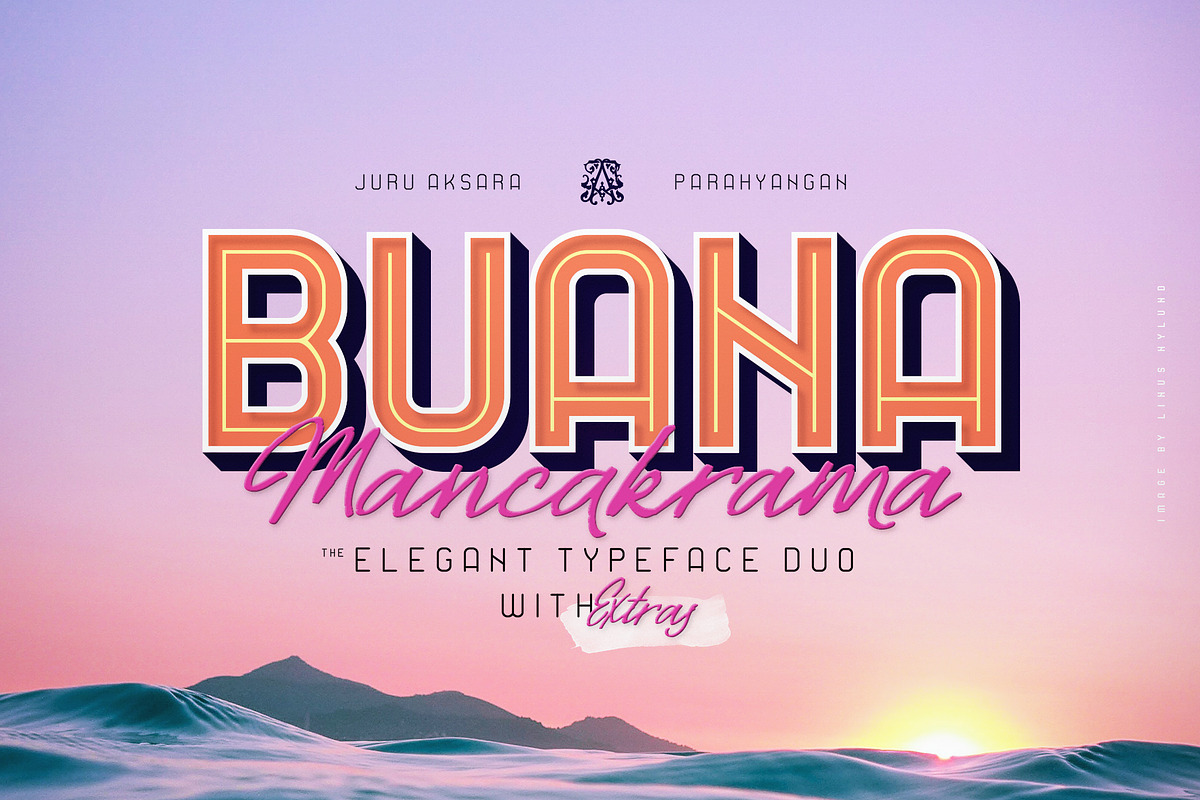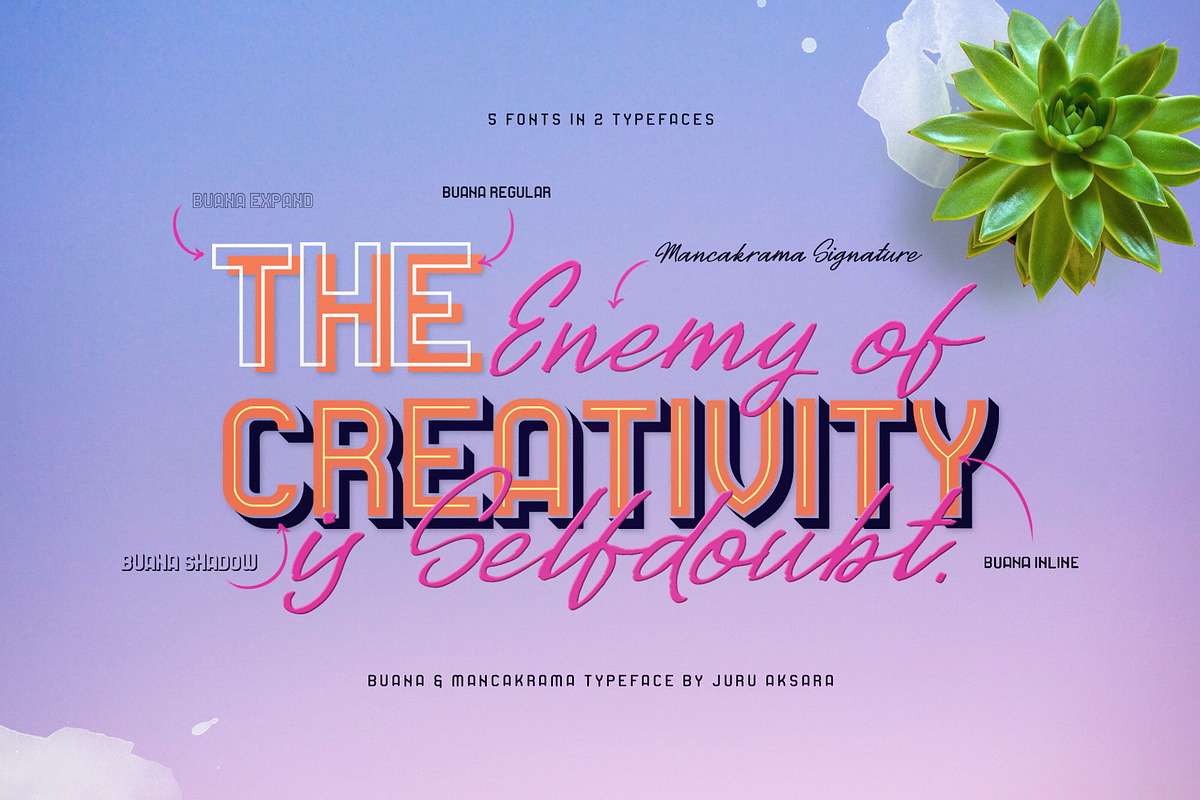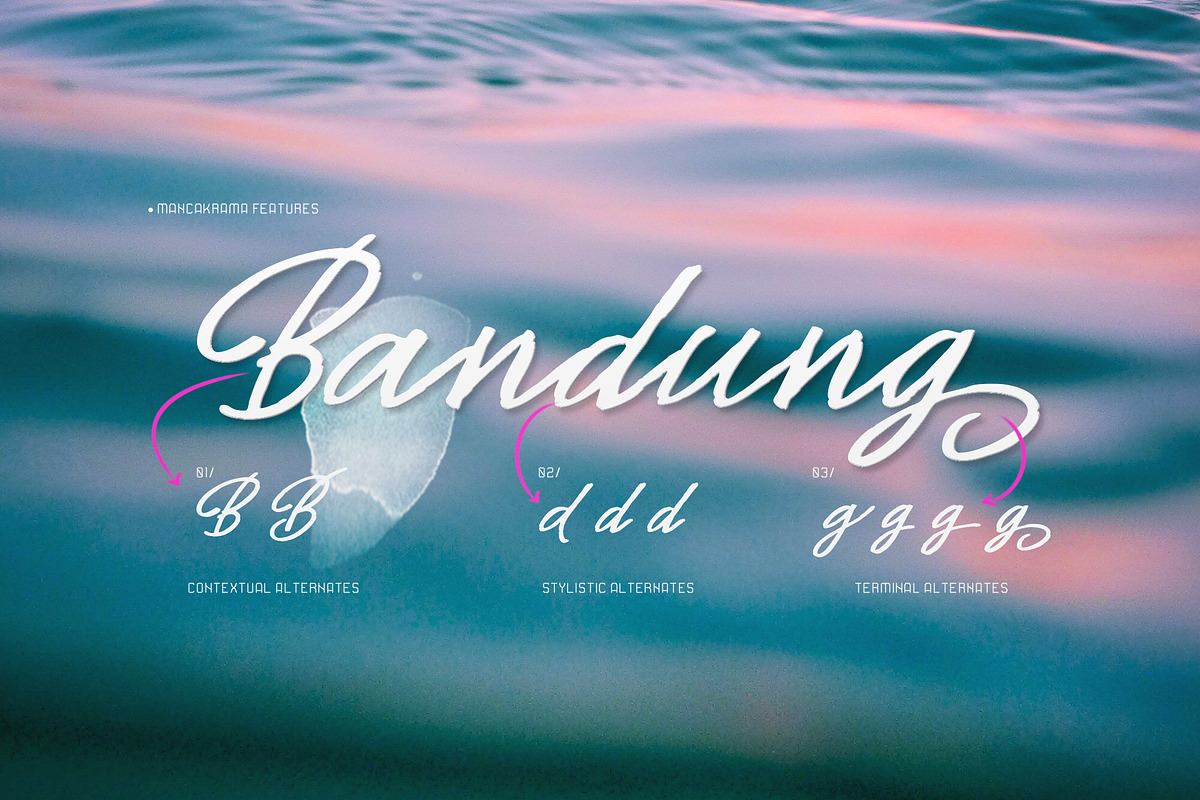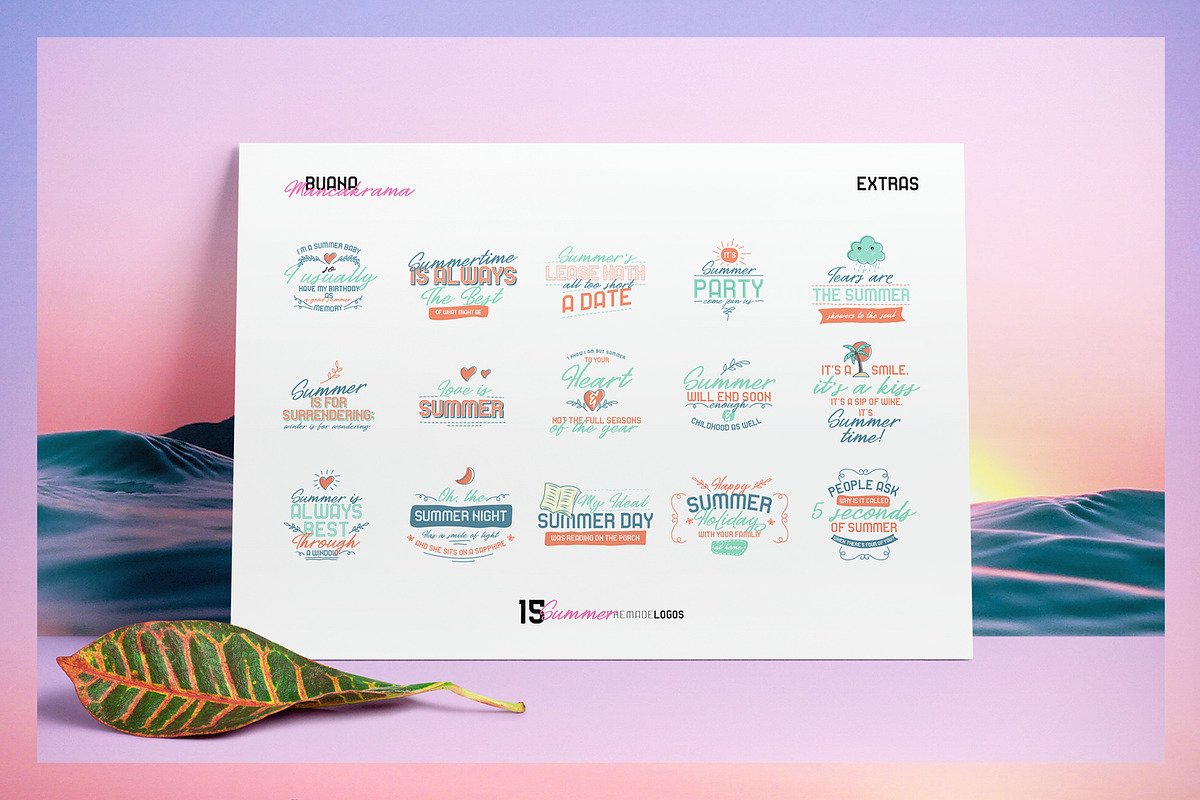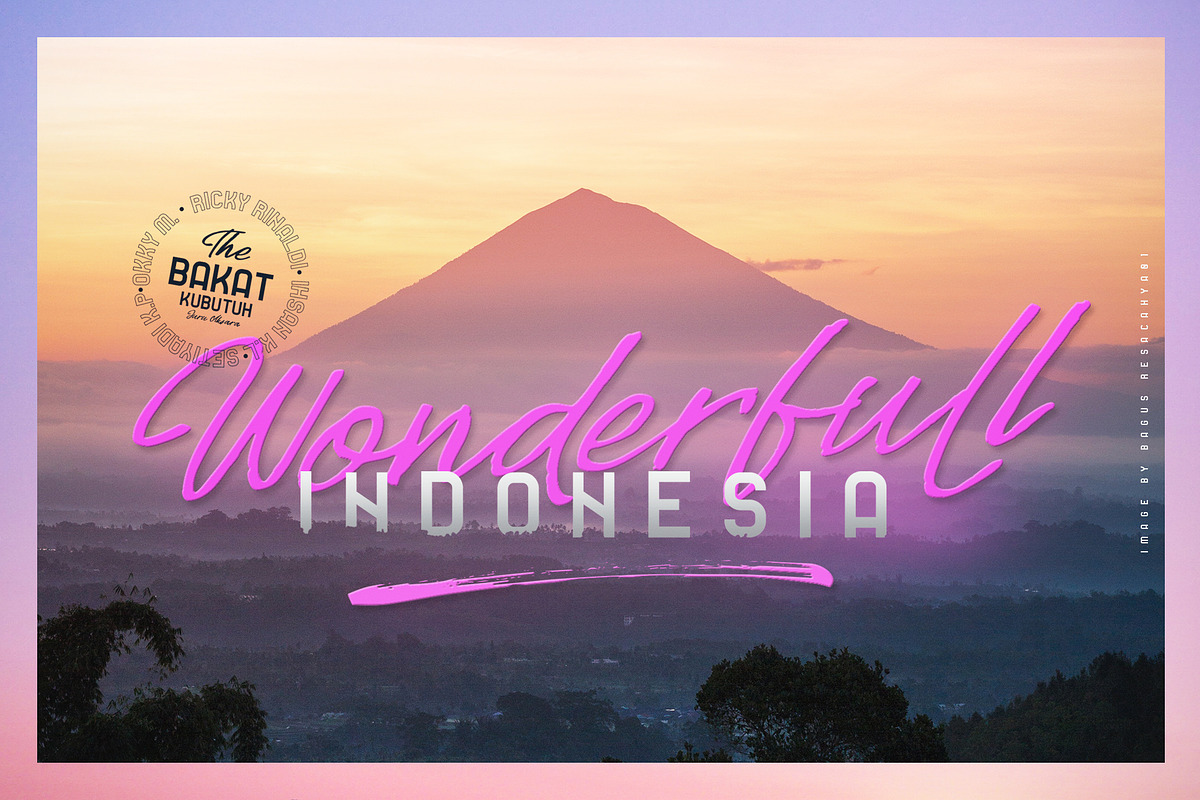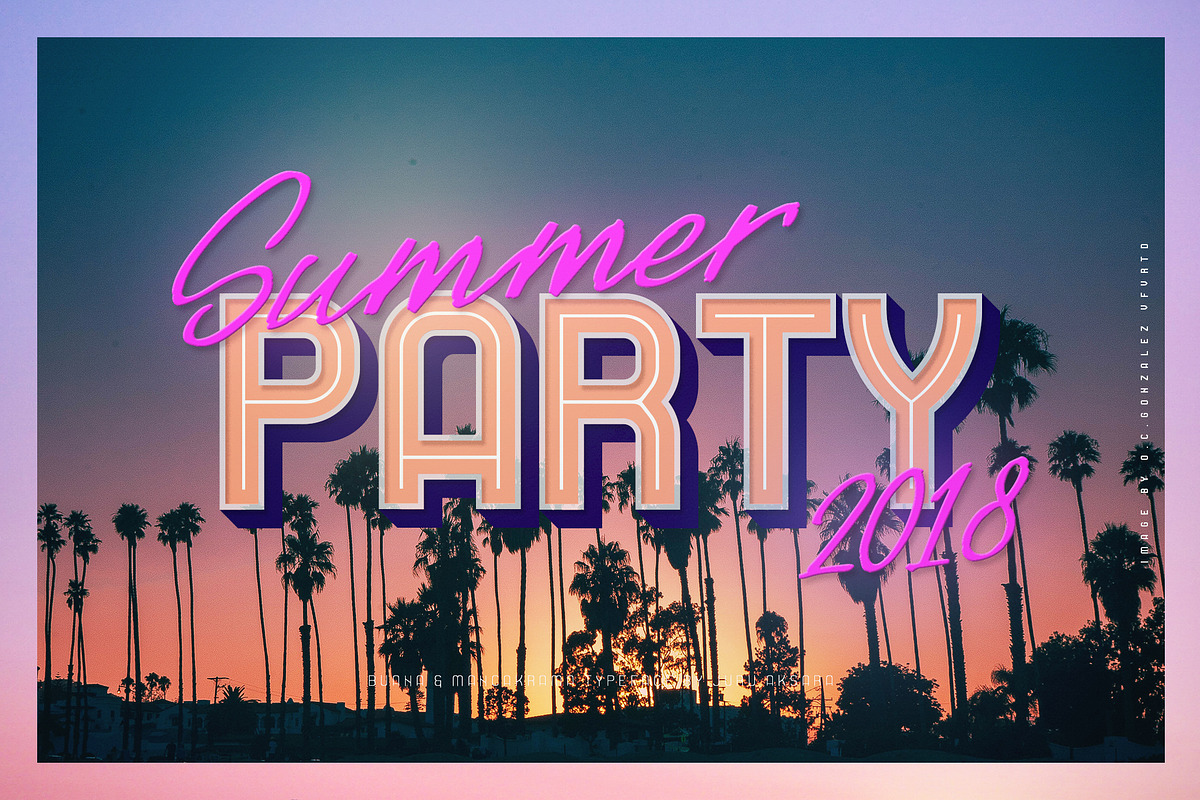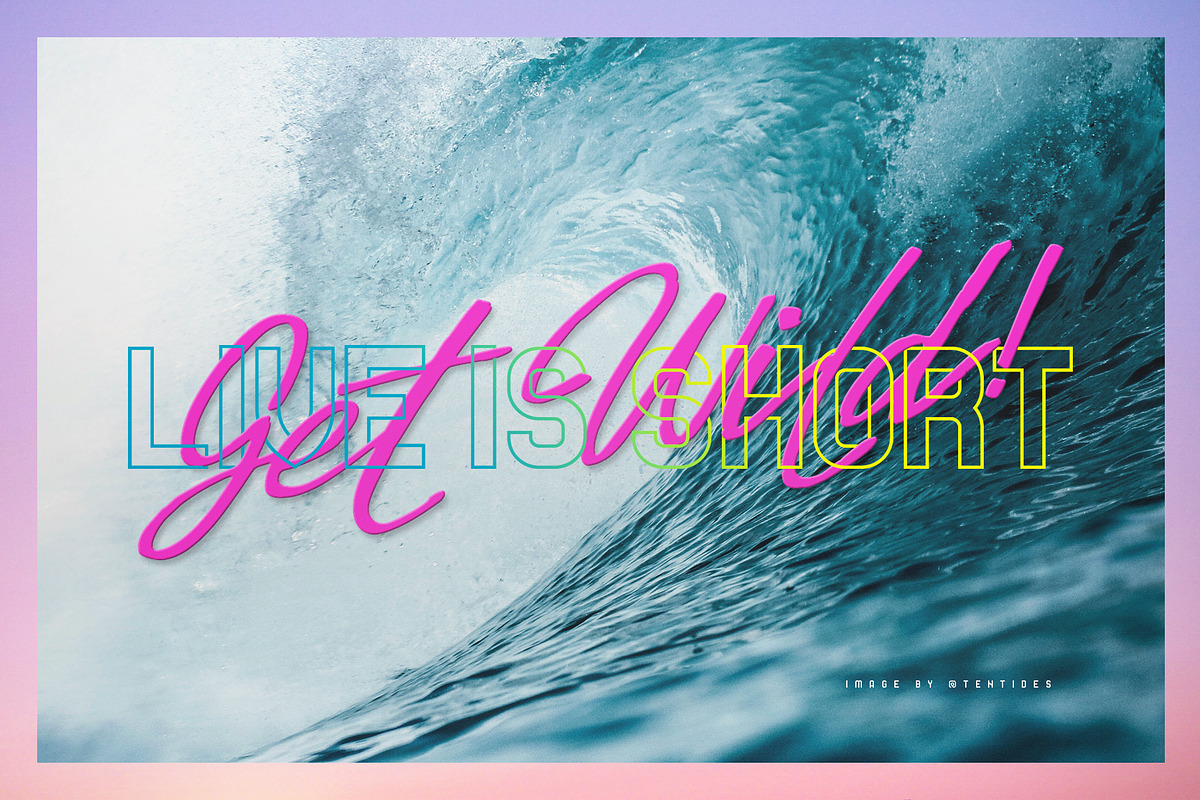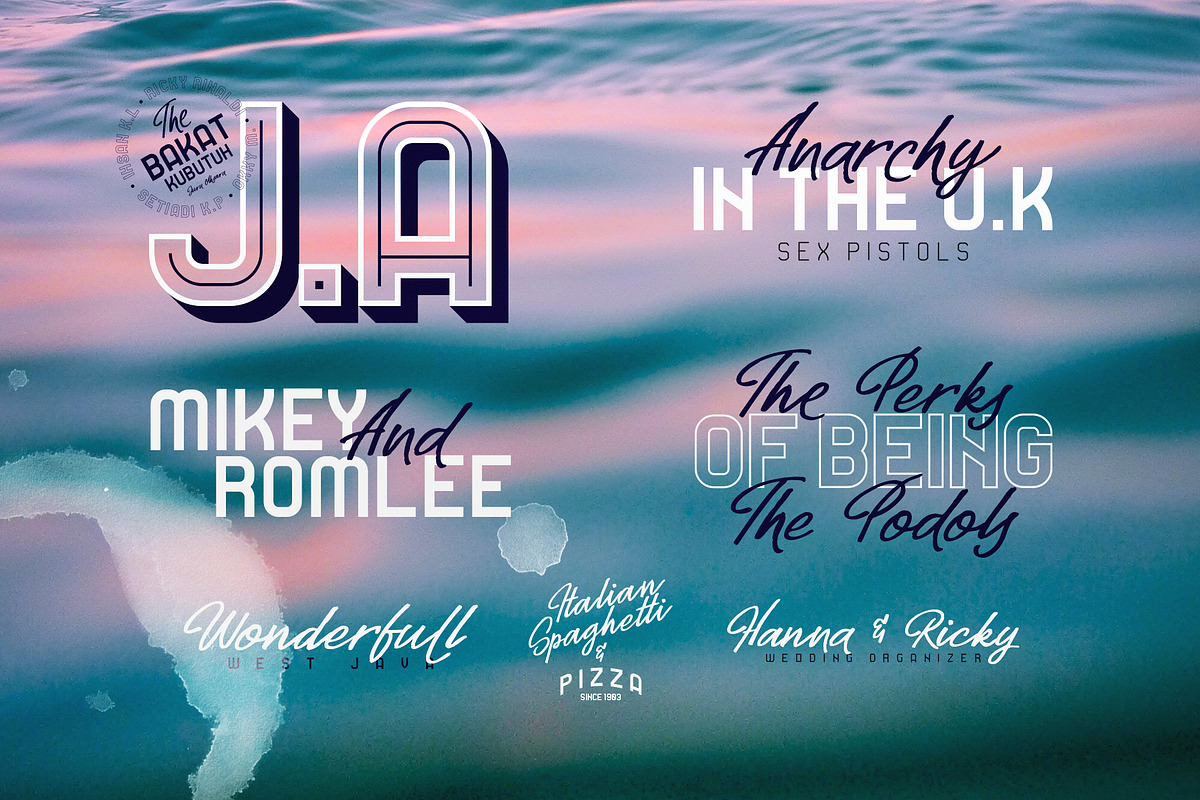
Buana & Mancakrama Typeface Duo
Introducing Buana Macakrama Font Duo
Buana Macakrama is taken from Sundanese which means "intimacy with the world", Buana Mancakrama summarize it all into a typeface. Representing the world through sans fonts which have some layers and mixed with Mancakrama as the character of freedom that desired by every human being in living their life.
Buana Mancakrama font family has 5 font styles consisting of uppercase, lowercase and various alternative options that can be customize to your taste. It's very suitable for headings, logo type, quotes, apparel design, invitations, flyers, posters, greeting cards, product packaging, book cover, printed quotes, etc.